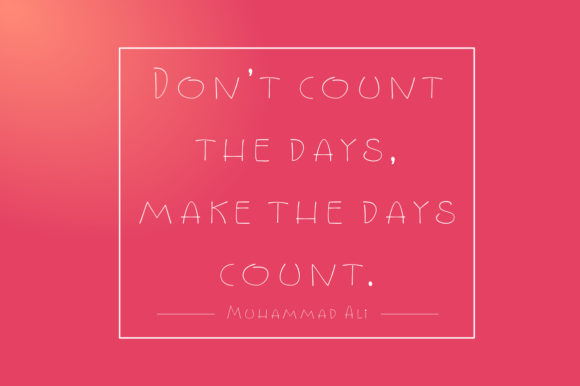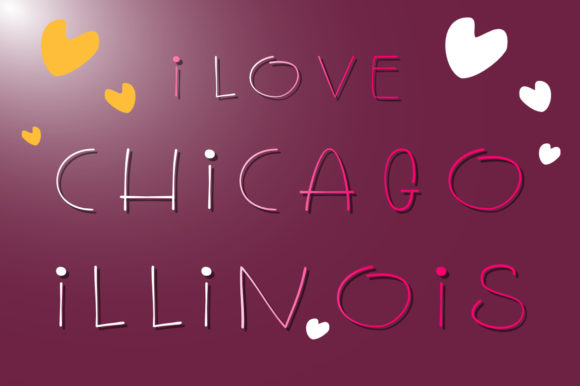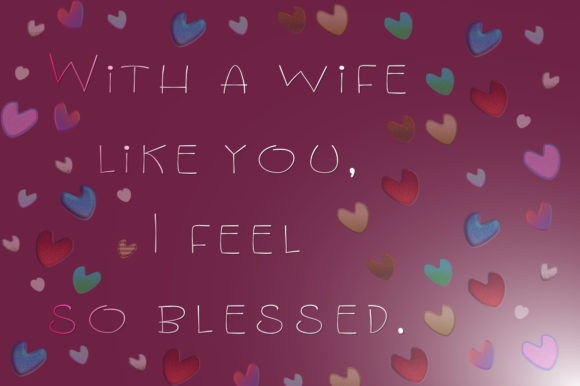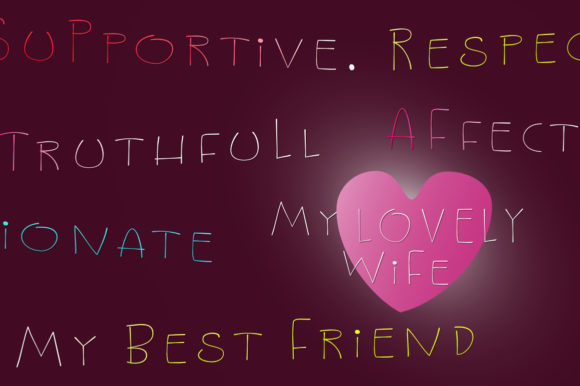
Lovely Wife Font
About Lovely Wife Font
Lovely Wife is a casual and sweet script that will add a lovely feel to any design idea. Get inspired by its simplistic charm!